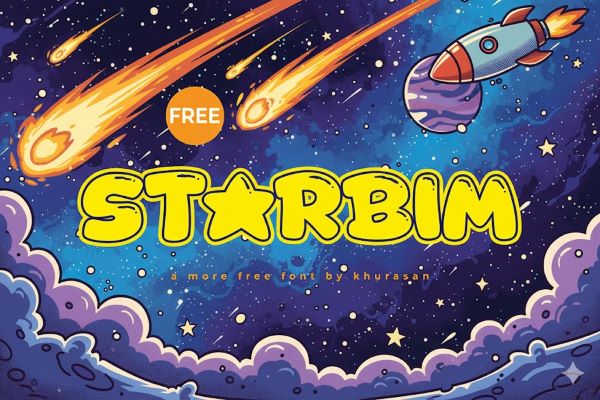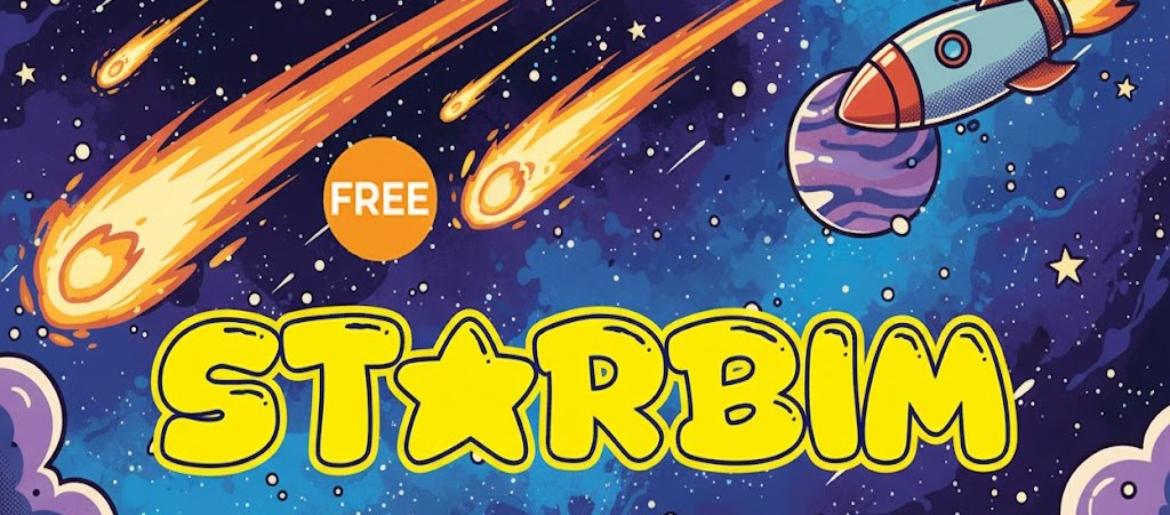
Starbim Font
Starbim Font is a playful, decorative display typeface with a fun, energetic personality. Its bold shapes and quirky curves make it perfect for children’s designs, logos, posters, packaging, and cheerful branding. Starbim brings a bright, friendly, and eye-catching style to any creative project.
➤ Font Name: Starbim
➤ Designer: Khurasan
➤ Style: Cartoon